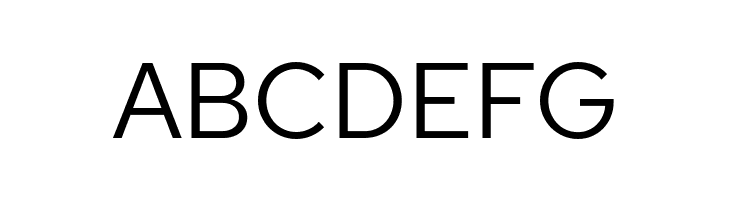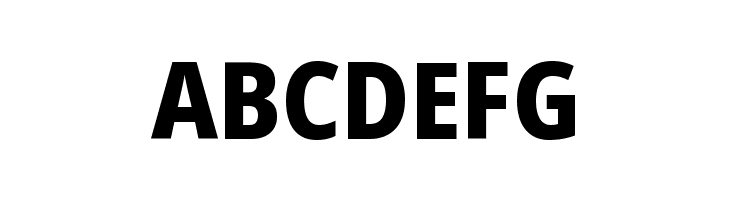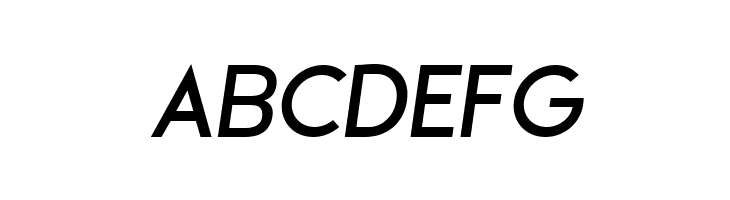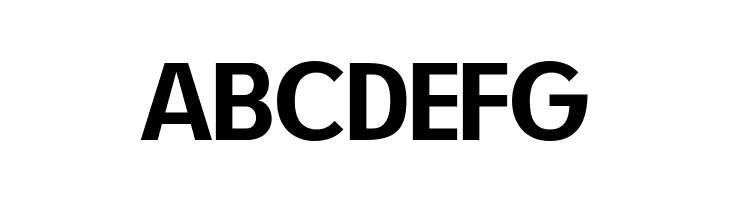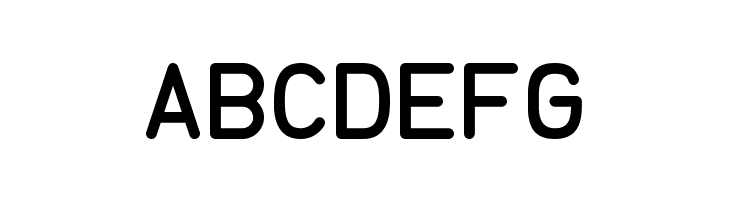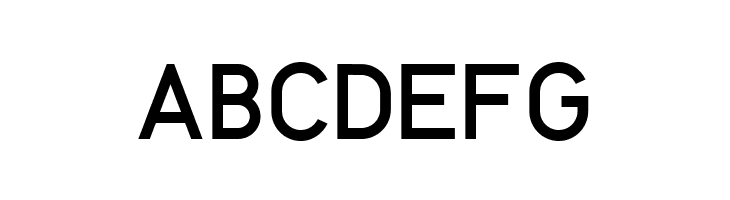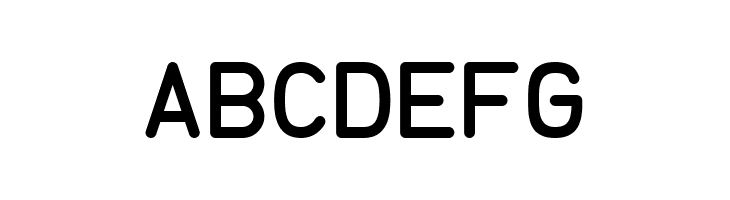
A modern, light sans-serif font with low contrast and excellent readability.
A modern, geometric sans-serif font with excellent readability and versatility.
A modern, thin sans-serif font with excellent readability and a minimalist design.
A modern, clean sans-serif font with balanced weight and excellent readability.
A modern, sans-serif font designed for Telugu script with excellent readability.
A clean, modern sans-serif font with excellent readability.
A bold, serif font with strong presence and excellent legibility.
A bold, semi-condensed sans-serif font with excellent readability.
A bold, modern sans-serif font with excellent readability.
A modern, semi-condensed sans-serif font with excellent readability.
A clean, modern sans-serif font with uniform stroke widths and excellent readability.
A bold, modern sans-serif font with clean lines and excellent readability.
A modern, semi-condensed font with thin strokes and excellent readability.
A bold, modern sans-serif font with excellent readability.
A clean, modern sans-serif font with excellent readability and uniform stroke widths.
A modern, clean sans-serif font supporting the Ethiopic script with excellent readability.
A modern, semi-condensed sans-serif font with excellent readability.
A modern, extra bold, semi-condensed typeface with clean lines and excellent legibility.
A bold, modern font with thick strokes and excellent readability.
A modern, extra-condensed sans-serif font with a light weight and excellent readability.
A modern, italic font with clean lines and excellent readability.
A modern, clean sans-serif font with uniform strokes and excellent readability.
A modern, rounded sans-serif font with excellent readability.
A clean, geometric sans-serif typeface with excellent legibility.
A modern, rounded sans-serif font with excellent readability.
A bold, modern sans-serif font with excellent readability.
A modern, clean sans-serif font with excellent readability.